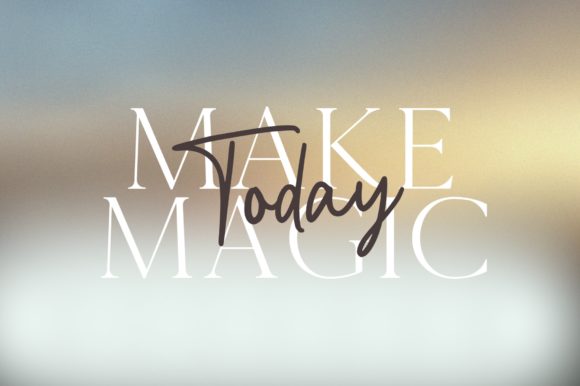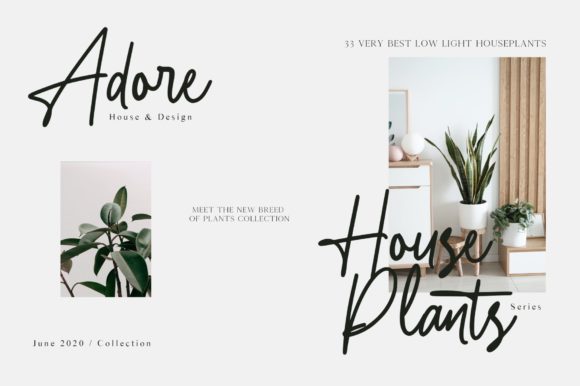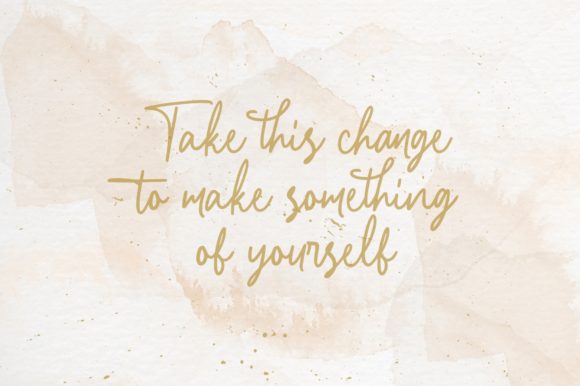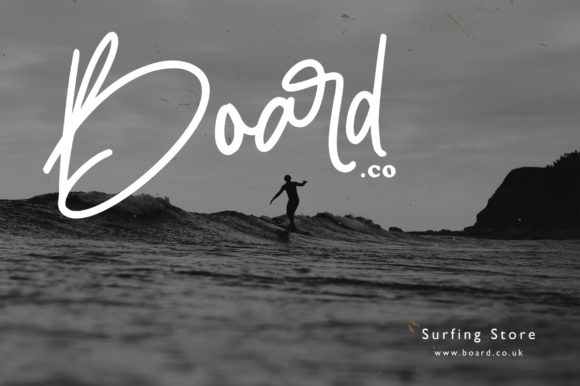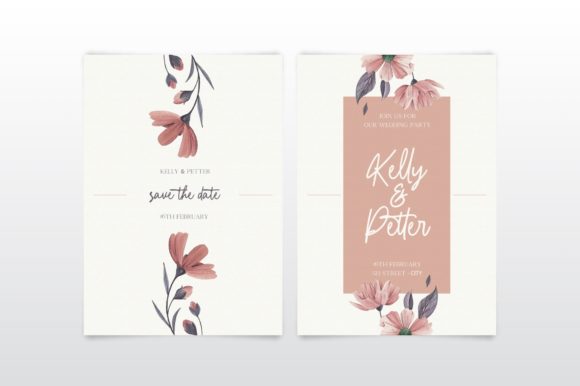
Wishless Font
About Wishless Font
Wishless is a very trendy, handwritten font with endless possibilities because of the multilingual support and lovely choice of ligature characters. This font is PUA encoded, which means you can access all of the glyphs with ease!